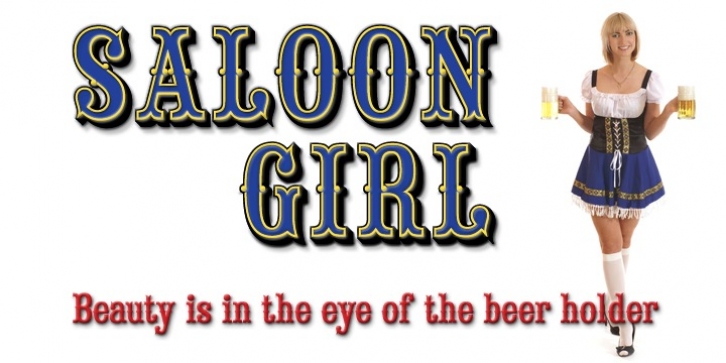
Saloon Girl is a revival of an old classic font used by sign painters and includes the rarely seen lowercase.
Saloon Girl comes with extra fill fonts, you will need an application that works in layers in order to use the fill fonts that Come with FontMesa fonts.